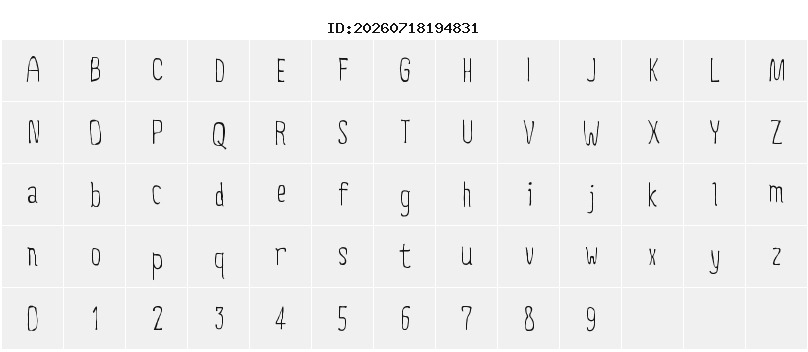
• Font Name: Creepy Circus
• Designer: Omar Mogollón
About Creepy Circus.ttf
Creepy Circus.ttf is a modern, elegant sans-serif font designed for ultimate readability and visual harmony. Perfect for branding, headlines, web design, and print materials.